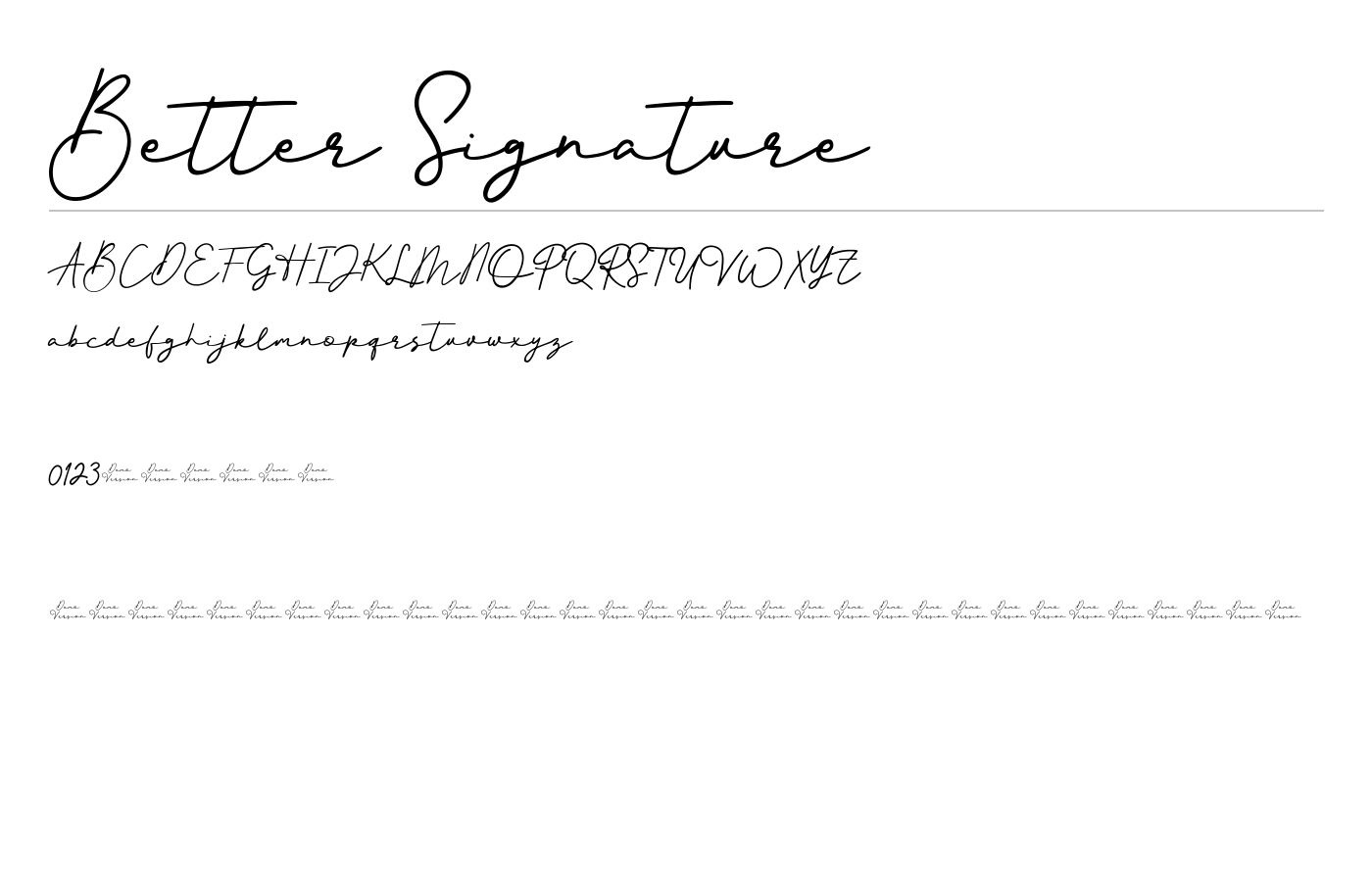
Better Signature Font is a delicate, elegant script font that mimics natural handwritten signatures with slender, flowing strokes and a refined, airy feel. Its light weight and smooth, slightly irregular letterforms give it a personal and sophisticated touch, making it perfect for branding, invitations, and stylish editorial projects where a graceful, intimate look is desired. This font works beautifully for adding a touch of personality and elegance to logos, packaging, and fashion-related designs.
Better Signature Font
About Better Signature Font
| Font family | Better Signature Font |
| Designer | Yudha Rahmat Ageng |